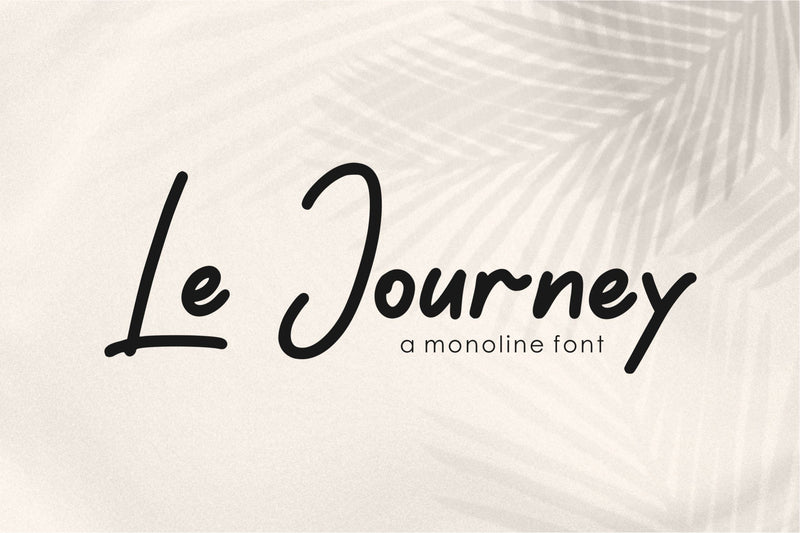
Le Journey
Proudly Present, Le Journey
Le Journey is a Monoline Font
Le Journey is perfect for product packaging, branding project, megazine, social media, wedding, or just used to express words above the background.